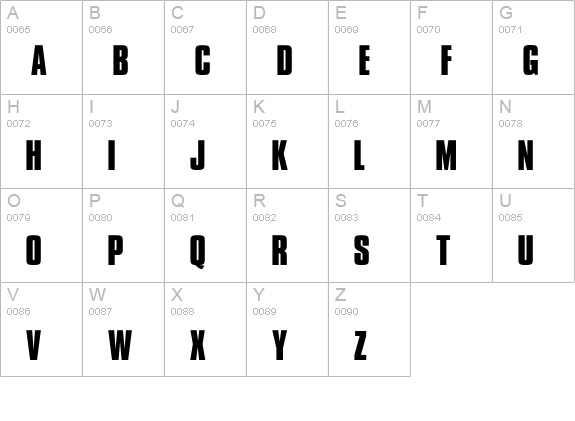
CompactaICG-Bold Font Details
CompactaICG-Bold is a strong, high-contrast variant in the CompactaICG typeface family \xE2\x80\x94 well suited to headlines, attention-grabbing titles, and strong calls-to-action.
CompactaICG-Bold is a bold and powerful sans-serif font that exudes confidence and modernity. Its clean lines and sturdy design make it ideal for headlines, titles, and other prominent text. The font's compact letterforms create a strong visual impact, while its bold weight adds emphasis and authority to any design. CompactaICG-Bold is a versatile typeface that can be used in a wide range of design projects, from branding and advertising to packaging and editorial design. What makes CompactaICG-Bold even more appealing is that it is available for free download at FontsMarket.com. This means you can easily access this high-quality font and use it in your projects without any cost. Whether you are a designer looking to add a bold and modern touch to your work or a business owner in need of a strong and impactful font for your branding, CompactaICG-Bold is a fantastic choice that won't break the bank. Download it today and elevate your designs with this sleek and stylish typeface.